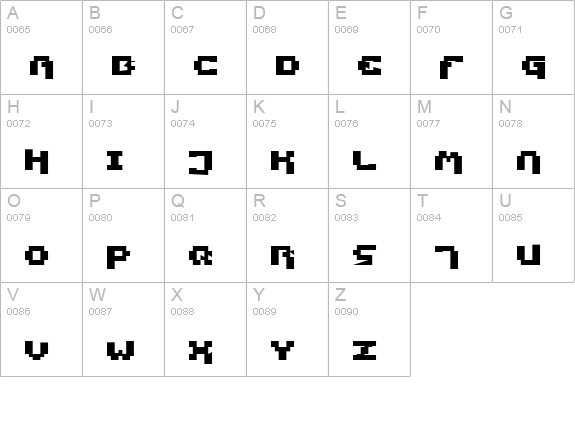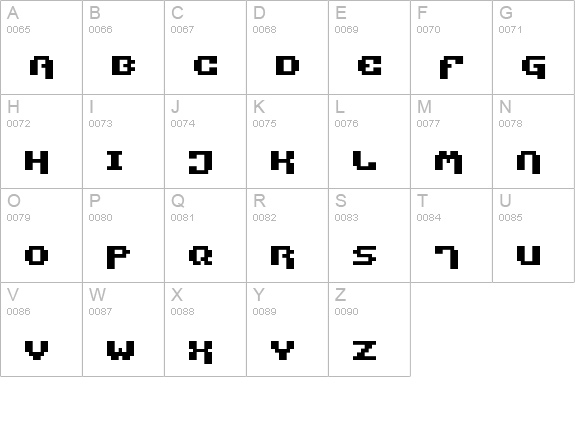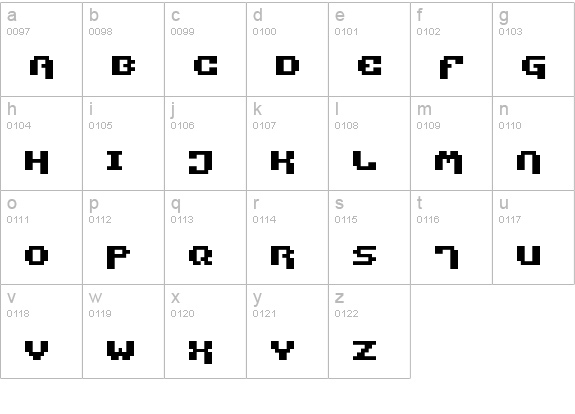
Introducing the remarkable Pixel Technology font - a visually stunning and highly versatile typeface that brings a modern twist to the world of pixelated design. With its clean lines, sharp edges, and perfectly crafted pixels, this font is sure to captivate your audience and add a touch of sophistication to any project. Pixel Technology is not just your ordinary font; it is a creative masterpiece that effortlessly combines the elegance of traditional typography with the intricate details of pixel art. Each character is meticulously designed to perfection, ensuring flawless legibility and a truly eye-catching display. Whether you're working on a website, logo, poster, or any other creative endeavor, Pixel Technology will elevate your design to new heights. Its bold and distinct appearance makes a bold statement, demanding attention and leaving a lasting impression on your viewers. But what sets Pixel Technology apart from the rest is its accessibility. This incredible font is available for free download exclusively at FontsMarket.com. Yes, you read that right - absolutely free! Now, you can unleash your creativity without the burden of additional costs, making it ideal for both personal and commercial use. With Pixel Technology, you have the power to bring your ideas to life like never before. Its versatility allows you to experiment with various styles and applications, ensuring that your designs are unique, captivating, and truly one-of-a-kind. So don't miss out on this amazing opportunity. Download the Pixel Technology font for free at FontsMarket.com and embark on a creative journey that will revolutionize the way you approach typography. Let your imagination run wild and watch as your designs come to life with this exceptional font.